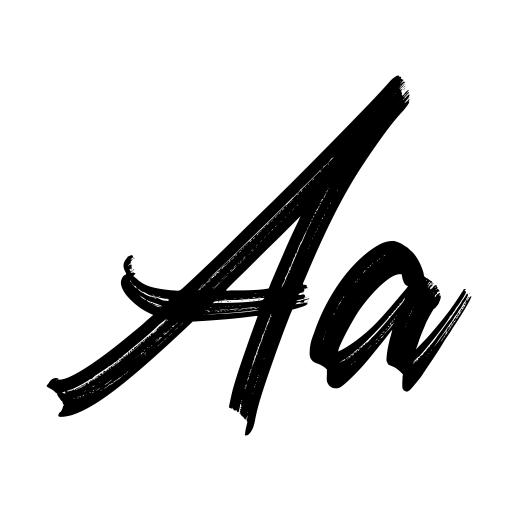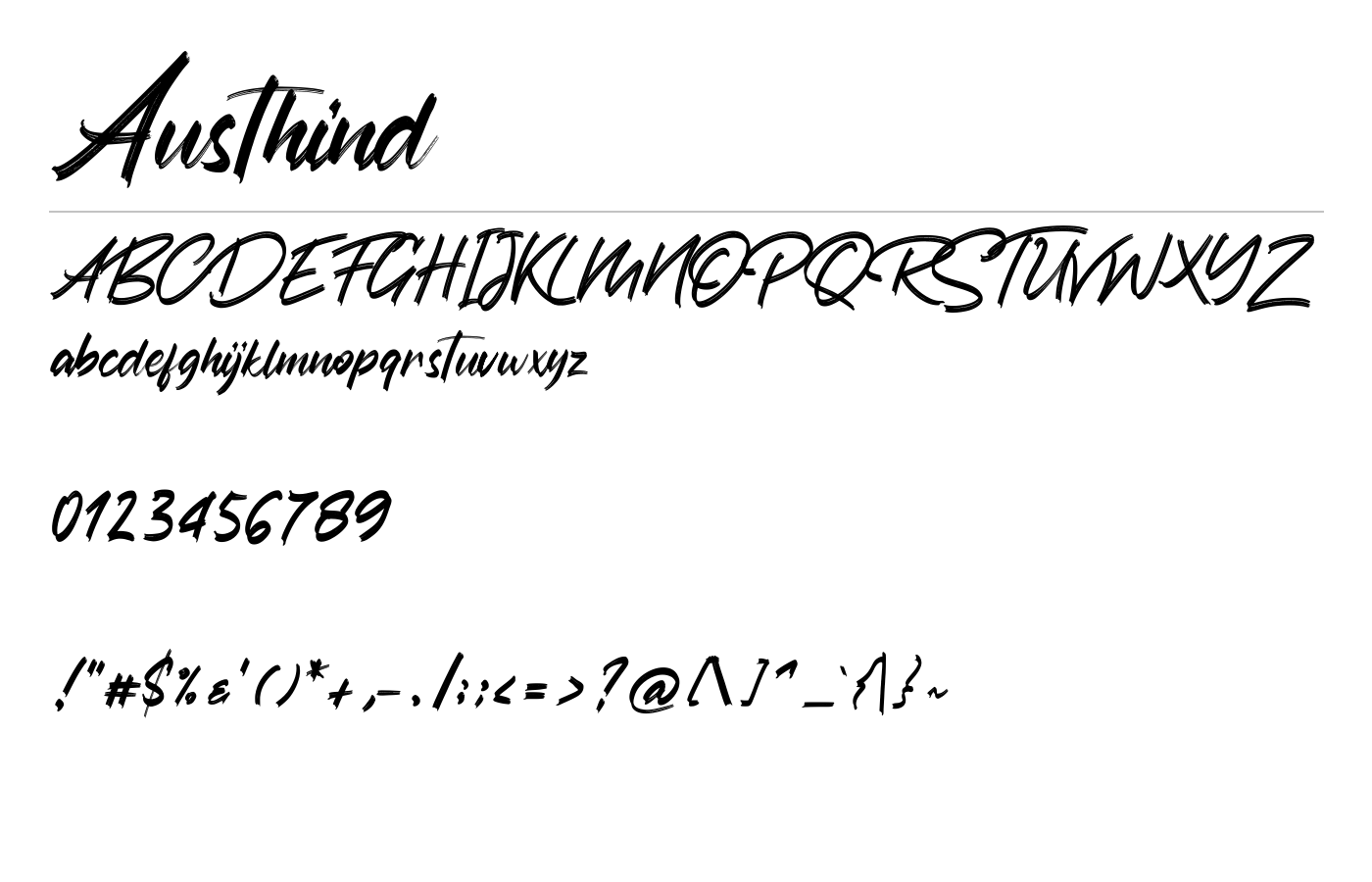
Austhind is a bold, brush-style script font with a lively, hand-painted look that brings energy and personality to any design. Its dynamic strokes and slightly irregular forms make it perfect for creative branding, eye-catching headlines, and artistic projects where a casual yet impactful tone is desired. This font works especially well in logos, posters, and packaging that aim to convey originality and a handcrafted feel.
Austhind Font
About Austhind Font